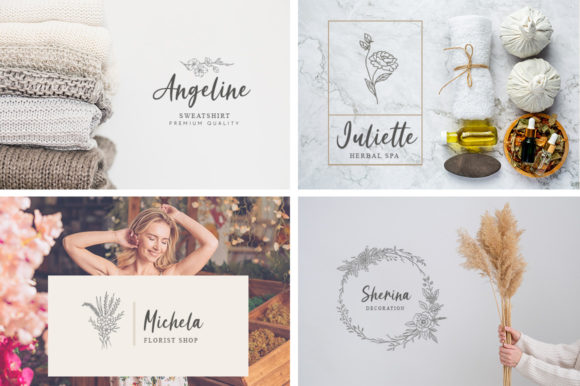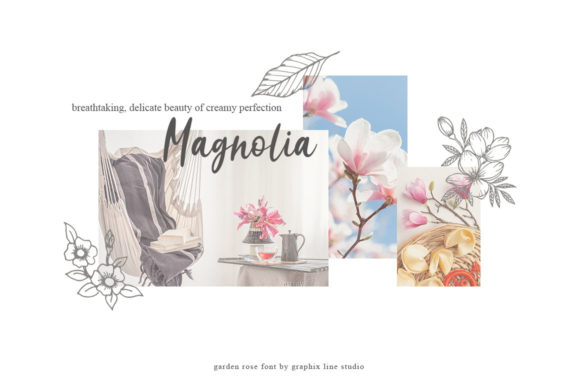
Garden Rose Font
db-ku.com - Script & Handwritten -- Garden Rose is a refined and dainty handwritten font. Cursive and joyful, this font will be ideal for writing wedding invitations, cards, branding, printing or any other design that may need a romantic, personalized touch!